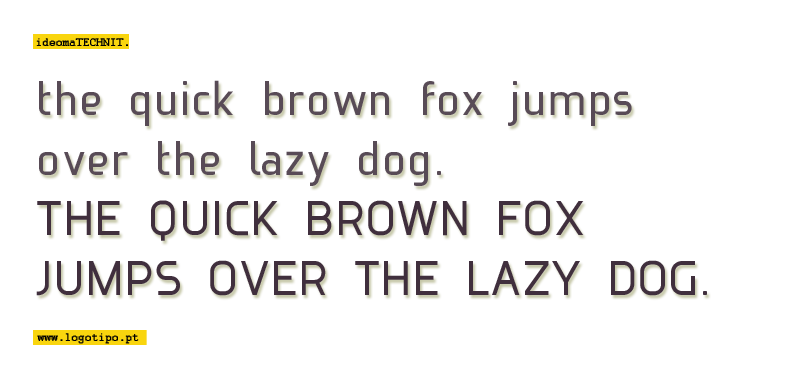
Preview and download Ideoma Technit Font. Created by Ideoma in Basic Sans serif styles with Donationware license.
Font name: | Ideoma Technit |
Author: | Ideoma |
Note by Ideoma | |